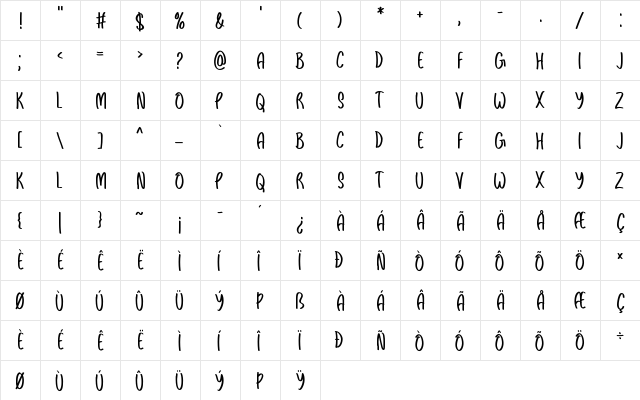
Sebqor Regular
Design Context for Sebqor Typeface
Sebqor takes a measured approach to typography — its balanced proportions and neutral character make it a reliable workhorse for both digital and print work.